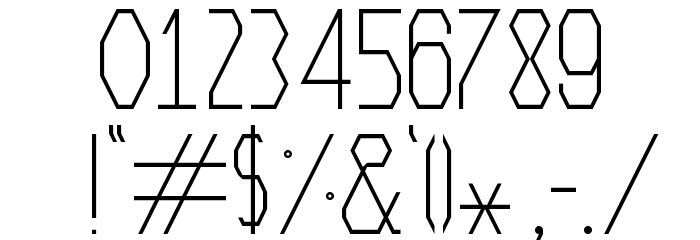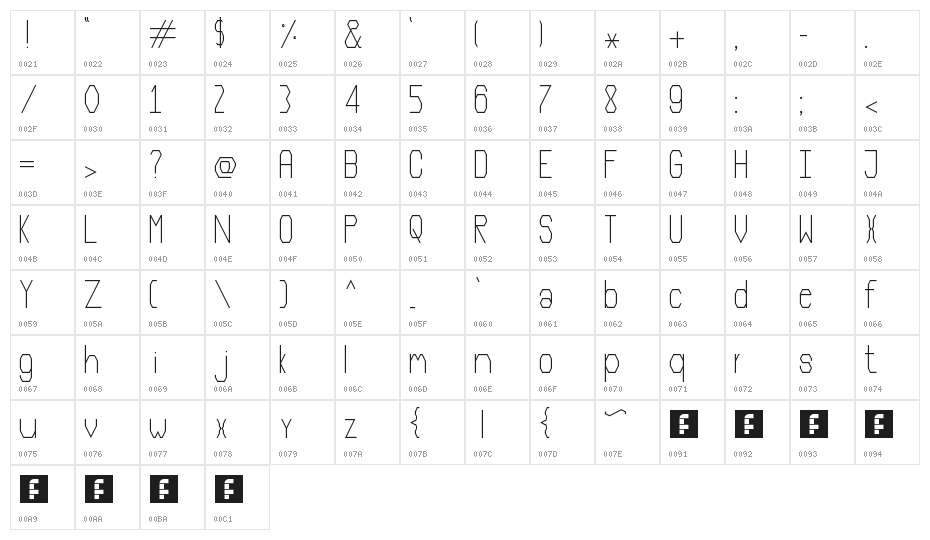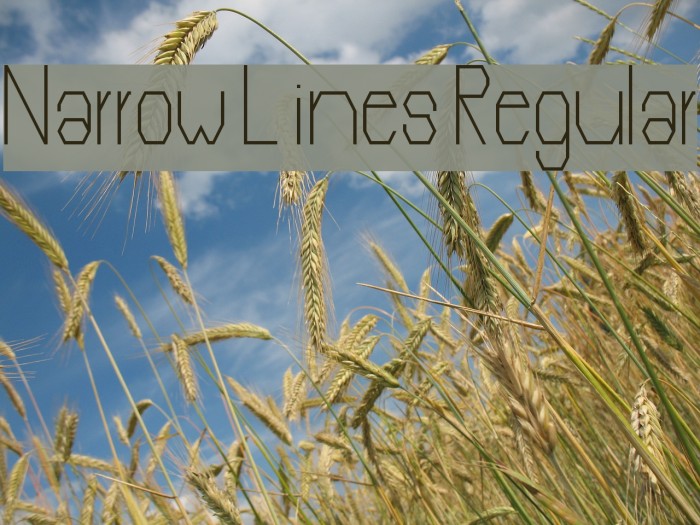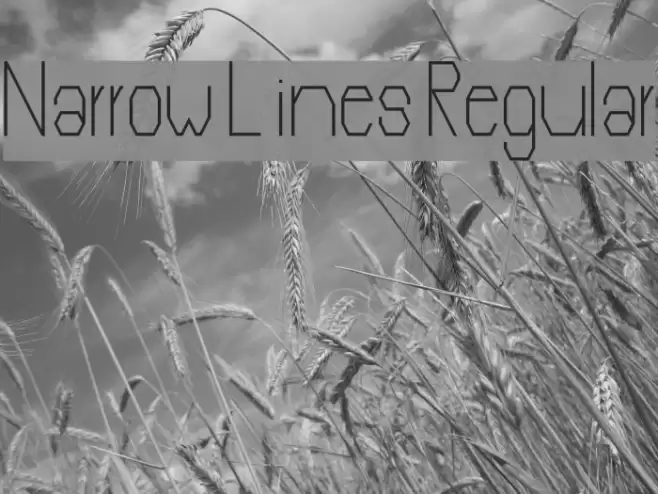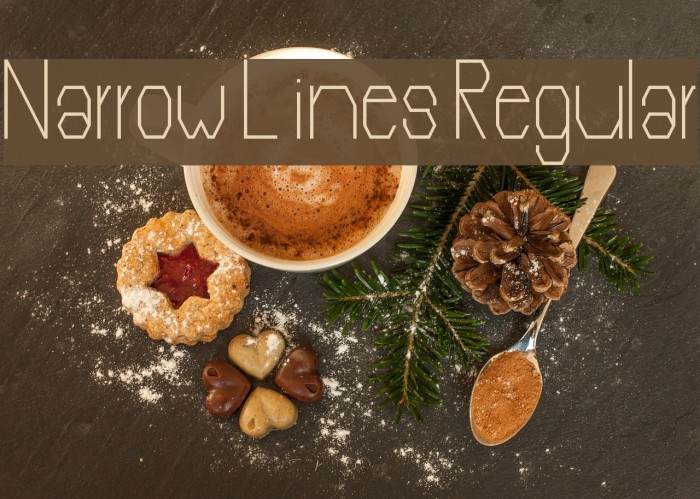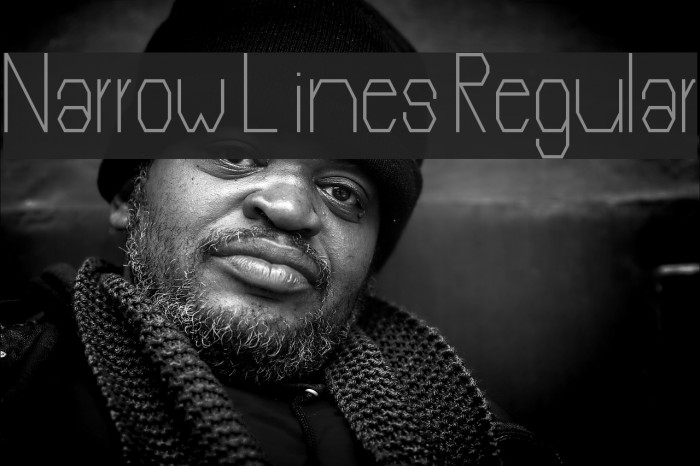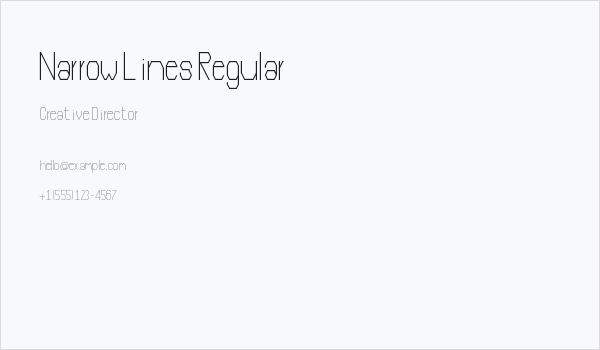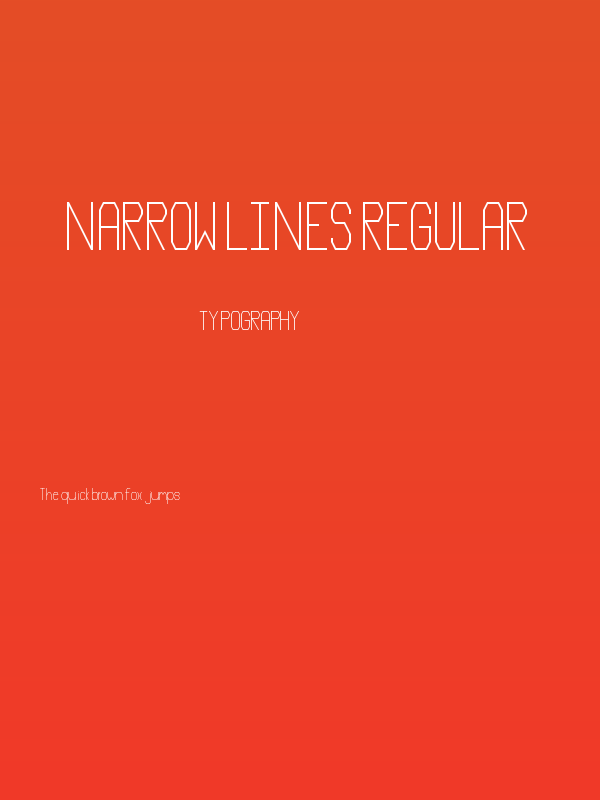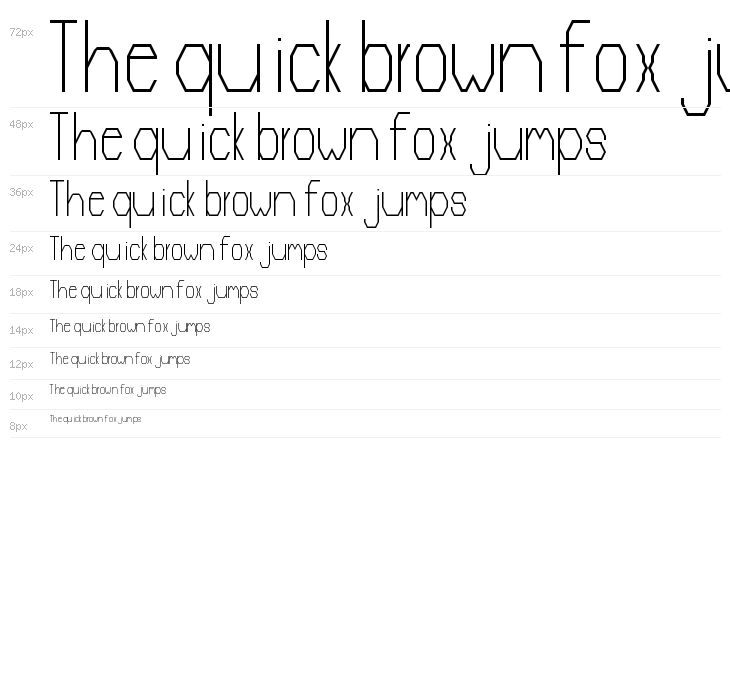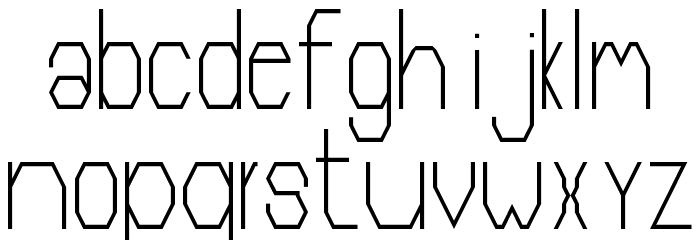
Narrow Lines Regular Font
Narrow Lines Regular Description
This font features a geometric and angular design, characterized by its narrow and elongated letterforms. The lines are consistent in thickness, creating a uniform appearance across all characters. The uppercase and lowercase letters maintain a similar style, with sharp angles and straight lines dominating the design. The numerals and special characters follow the same geometric pattern, ensuring a cohesive look. This font's unique structure gives it a modern and technical feel, suitable for projects that require a futuristic or minimalist aesthetic. The spacing between characters is tight, which enhances its compact and streamlined appearance.
| Use Case | Logos, Headlines, Digital interfaces |
| Proposed Projects | Ideal for tech branding, modern posters, digital interfaces, and minimalist graphic design projects. |